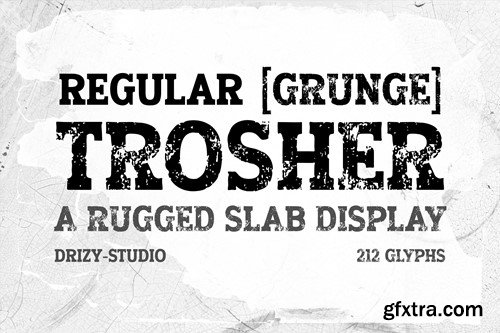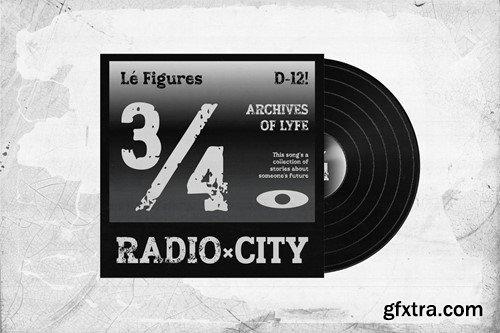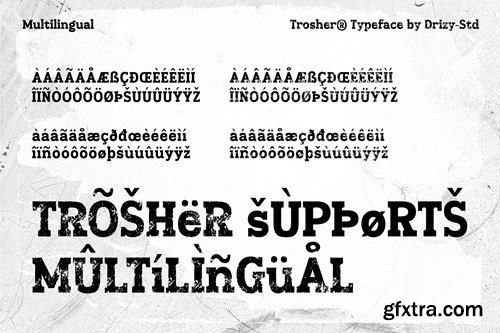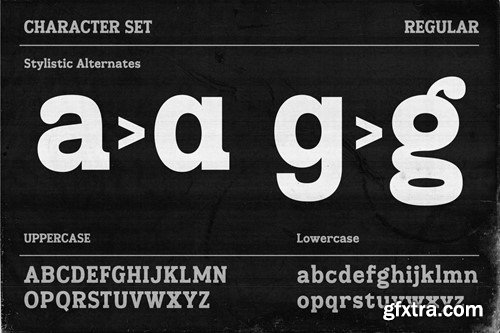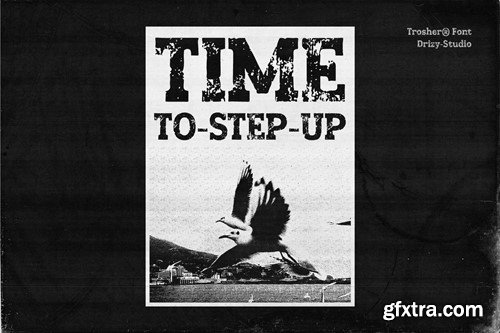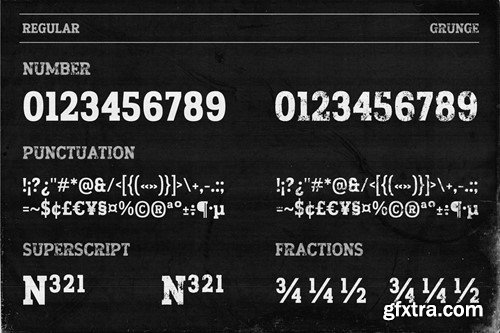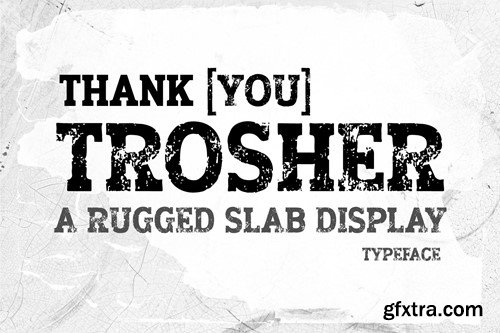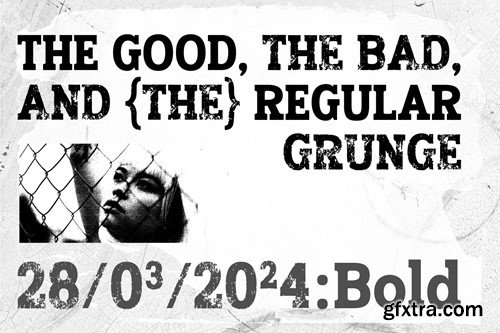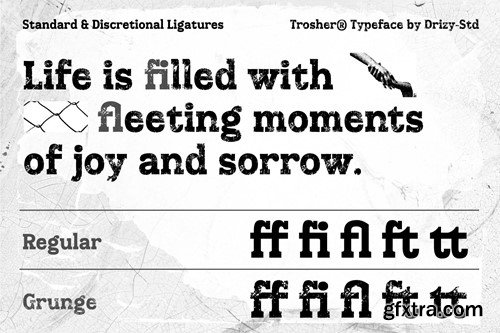
Trosher – 粗犷石材展示字体 MVCDF4U
Trosher – Rugged Slab Display Font
Trosher – Rugged Slab Display Font Trosher is a unique typeface designed to mimic the texture and appearance of soil. It’s crafted with intricate details that resemble the earthy elements found in soil, creating a natural and organic feel in typography. This font adds a rustic and earth-inspired touch to design projects, making it ideal for environmentally themed materials, gardening publications, or anything related to nature and sustainability. Trosher features: Character Set (Upperscase & Lowercase) Punctuation & Numbers Variable : Regular & Grunge Multilingual Alternates Ligatures File Included: OTF & TTF Elevate and explore the design possibilities with this Soil Font!